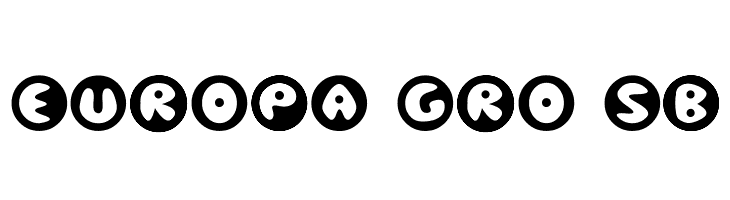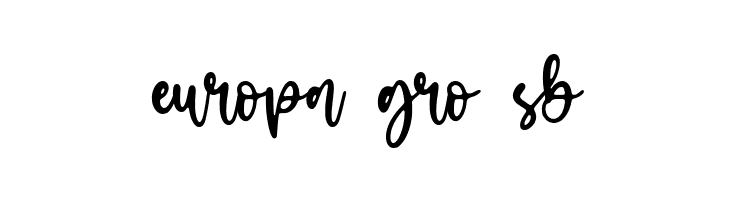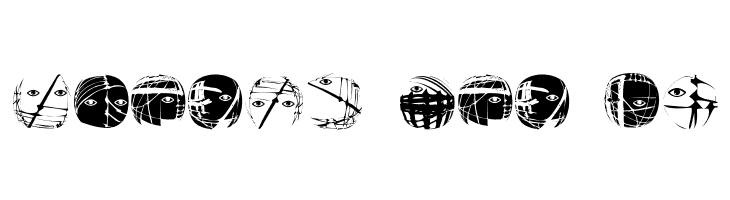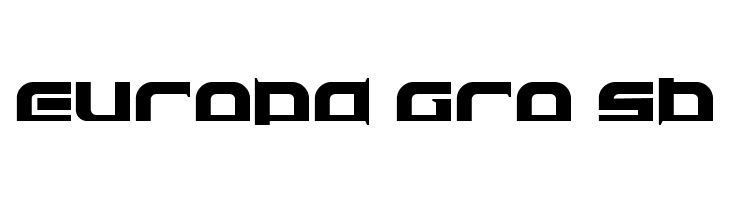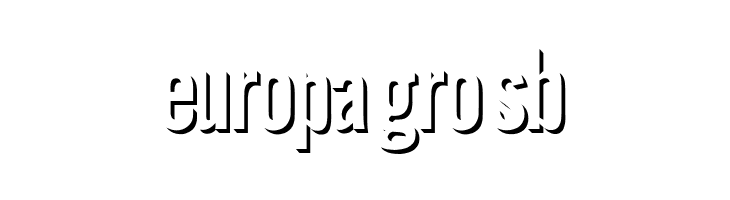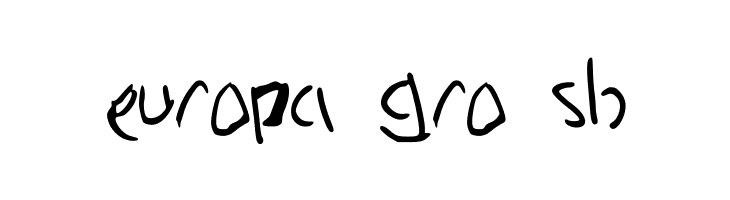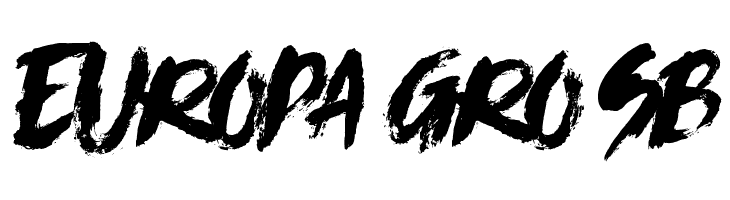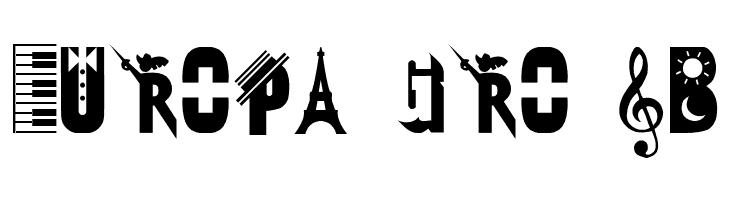
• EclectHeads
An artistic font with characters resembling abstract faces in circular shapes.
• Eclectic
A playful, eclectic font with a mix of handwritten and decorative elements.
• Eclectica
A bold, decorative font with artistic and whimsical elements.
• Eclipse
Bold, shadowed font with a modern, three-dimensional look.
• Eclipse
A bold, circular font with a playful and modern design.
• Eclipse Cinema
A lively, flowing script font with bold, expressive characters.
• Eclipse Demo
A bold, expressive brush-style font with dynamic, hand-painted strokes.
• Eclipsed Moon
A bold, distressed font with an eclipsed, shadowed effect.
• Eclipsed Moon Outline
A bold, artistic font with an eclipse-like shadow effect and thick outlines.
• Eclipser
A futuristic, geometric font with bold, angular letterforms.